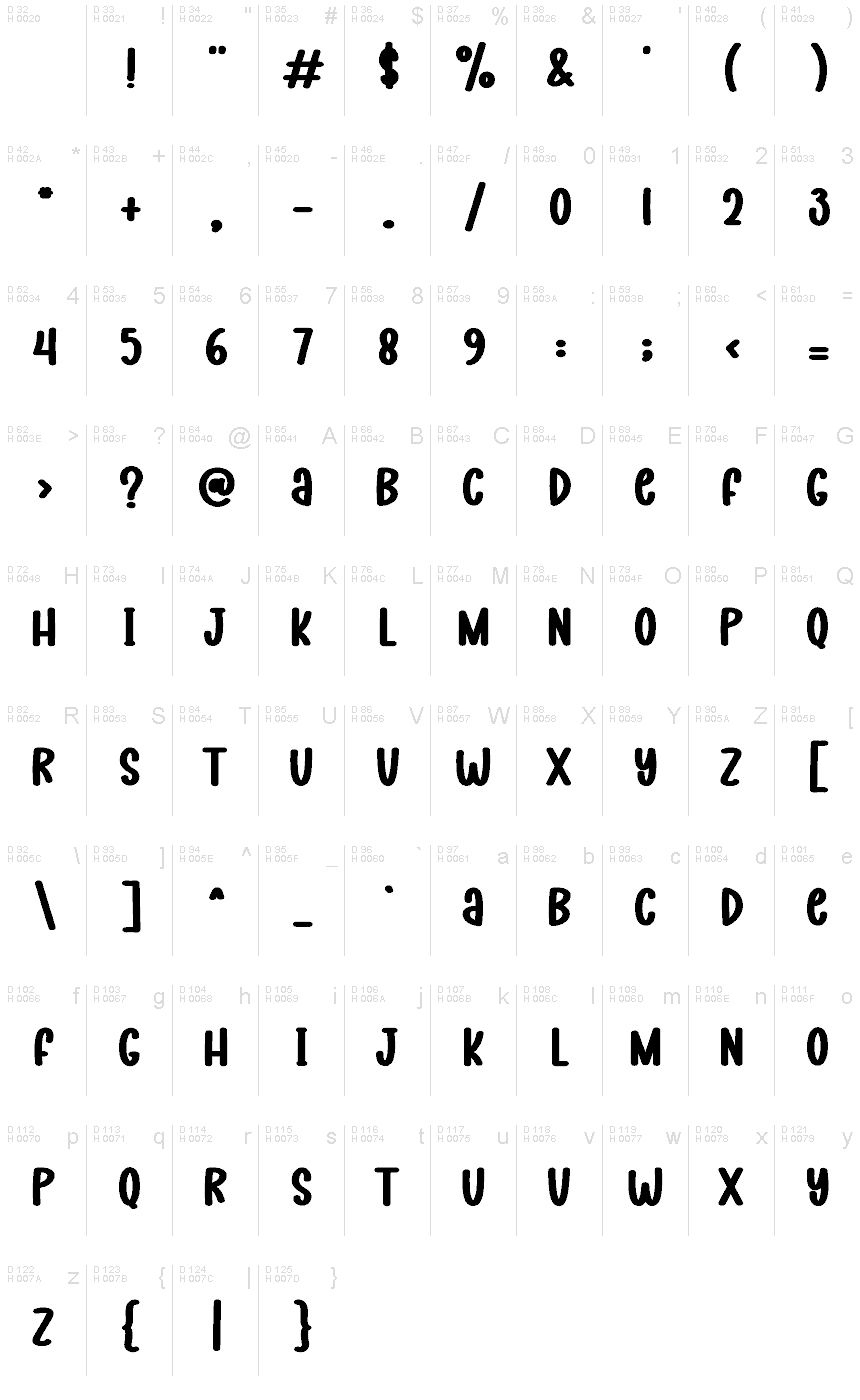
Ghost Party
Ghost Party font is a whimsical and friendly condensed handwritten font, made by Scratchones. Its rounded edges and expressive characters give it a casual, relaxed feel while creating visual interest. Each glyph appears cheery, inspired by comic strips or even some child-like handwriting.